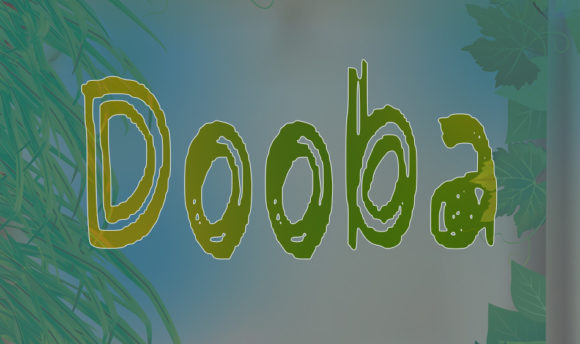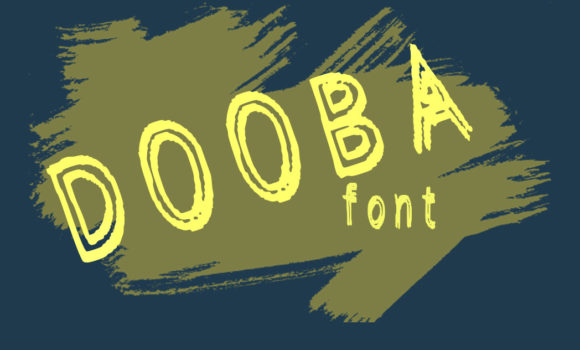
Introducing Dooba Font: The Simple and Brushed Display Font for Stunning Designs
In the world of typography, fonts play a crucial role in making or breaking a design. A well-chosen font can elevate your project, making it more visually appealing and engaging. If you’re a designer or crafter looking for a simple, yet original and easy-to-read font, look no further than Dooba Font. In this article, we’ll dive into the features and benefits of Dooba Font, and explore how it can be used to create stunning designs for various purposes.
What is Dooba Font?
Dooba Font is a simple and brushed display font that is perfect for designs that require a neat, original, and easy-to-read aesthetic. Its unique brushed texture gives it a distinctive look that sets it apart from other fonts. Dooba Font is designed to be versatile, making it suitable for a wide range of applications, from digital designs to print materials.
Key Features of Dooba Font
- Simple and Clean Design: Dooba Font boasts a simple and clean design that makes it easy to read, even at smaller font sizes.
- Brushed Texture: The font’s brushed texture adds a touch of elegance and sophistication to any design.
- Highly Versatile: Dooba Font can be used for various purposes, including headings, titles, labels, and more.
- Easy to Read: The font’s clear and legible design ensures that your message is conveyed effectively.
Use Cases for Dooba Font
Dooba Font is an excellent choice for a variety of design projects, including:
- Logos and Branding: Create a stunning logo or brand identity with Dooba Font’s unique brushed texture.
- Headings and Titles: Use Dooba Font to add a touch of elegance to your headings and titles.
- Signage and Print Materials: Dooba Font is perfect for creating eye-catching signage, brochures, and other print materials.
- Digital Designs: Use Dooba Font in your digital designs, such as website headers, social media graphics, and more.
Benefits of Using Dooba Font
By choosing Dooba Font for your design projects, you’ll enjoy several benefits, including:
- Unique and Original Design: Dooba Font’s distinctive brushed texture sets it apart from other fonts.
- Improved Readability: The font’s clear and legible design ensures that your message is conveyed effectively.
- Increased Versatility: Dooba Font can be used for a wide range of applications, making it a valuable addition to your font library.
Tips for Using Dooba Font Effectively
To get the most out of Dooba Font, follow these tips:
- Use it as a Display Font: Dooba Font is perfect for use as a display font, where its unique brushed texture can be showcased.
- Experiment with Colors: Try pairing Dooba Font with different colors to create a unique and eye-catching design.
- Combine with Other Fonts: Experiment with combining Dooba Font with other fonts to create a visually appealing contrast.
In conclusion, Dooba Font is a simple and brushed display font that is perfect for designers and crafters looking for a neat, original, and easy-to-read font. Its unique features, versatility, and benefits make it an excellent choice for a wide range of design projects. By following the tips outlined in this article, you can use Dooba Font to create stunning designs that elevate your projects and leave a lasting impression.